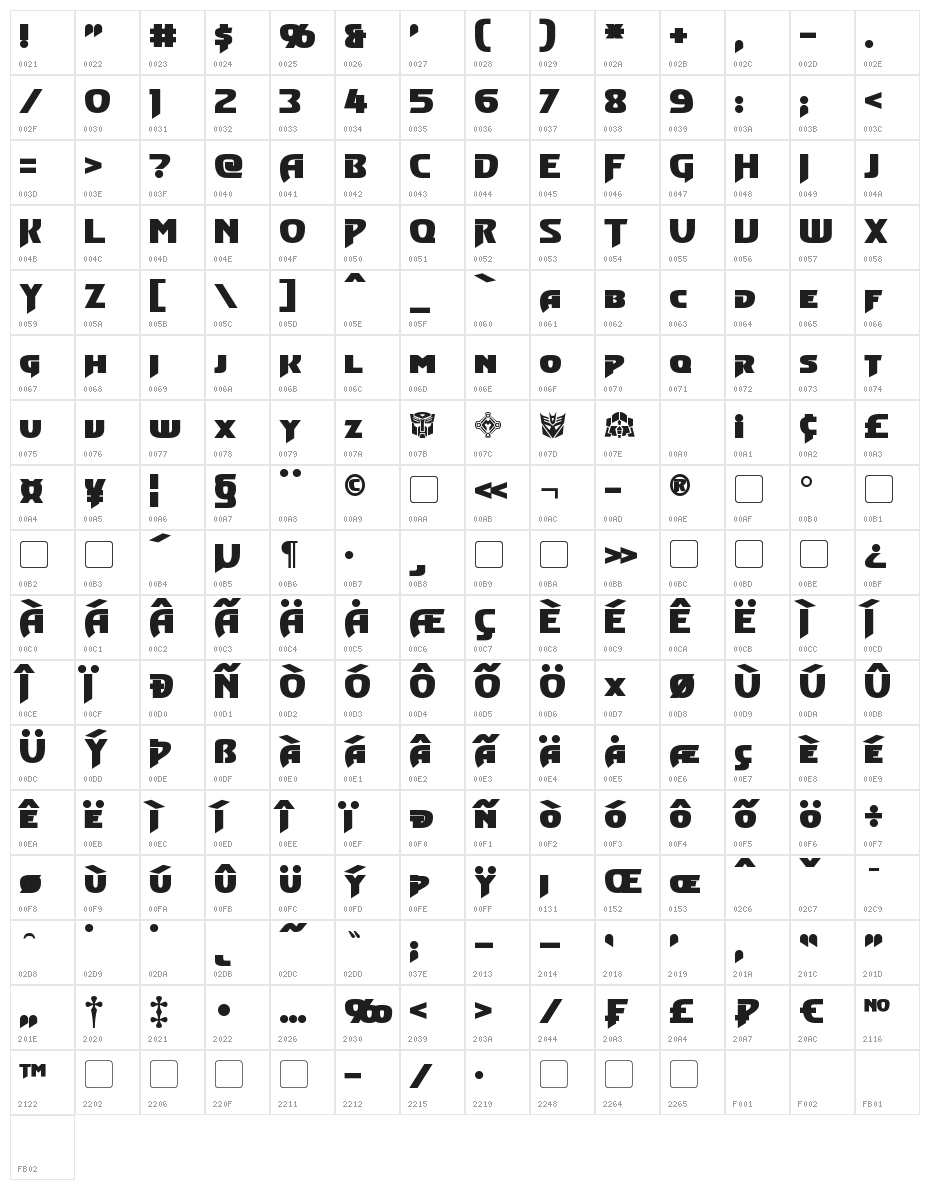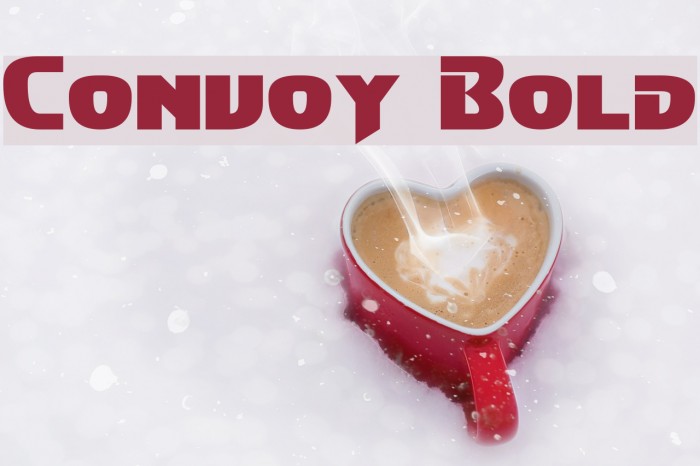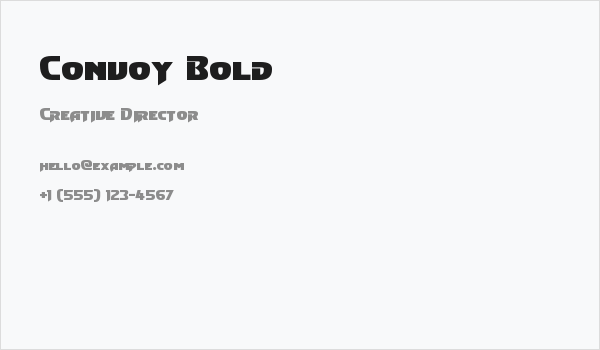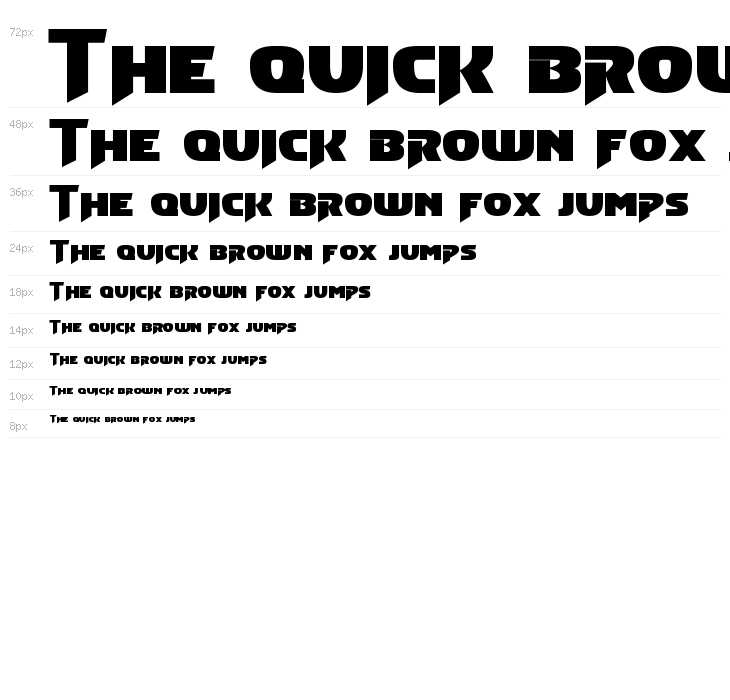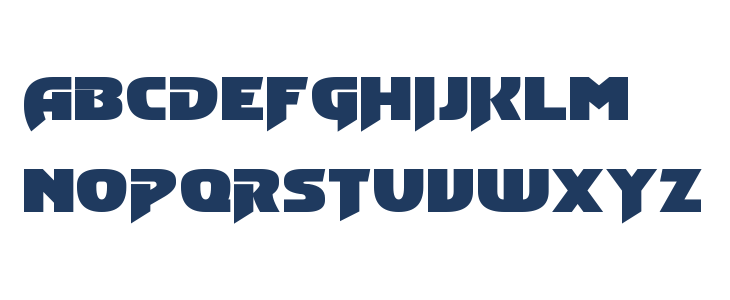
Convoy Bold Font
Convoy Bold Description
This bold and striking font features angular, geometric shapes with a strong presence. The uppercase letters are designed with sharp edges and a futuristic style, making them stand out prominently. The lowercase letters maintain the boldness, with a slightly more rounded approach, yet still retaining the geometric influence. Numbers are equally bold and consistent with the overall design, ensuring readability and impact. Special characters are crafted to match the bold and angular aesthetic, providing a cohesive look across all elements.
| Proposed Projects | Ideal for branding, posters, headlines, and any project requiring a strong, modern impact. |